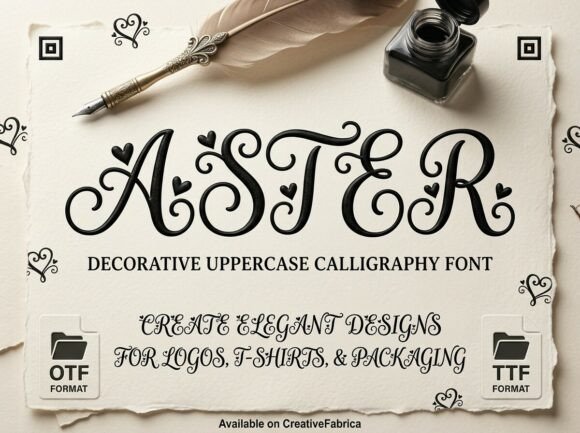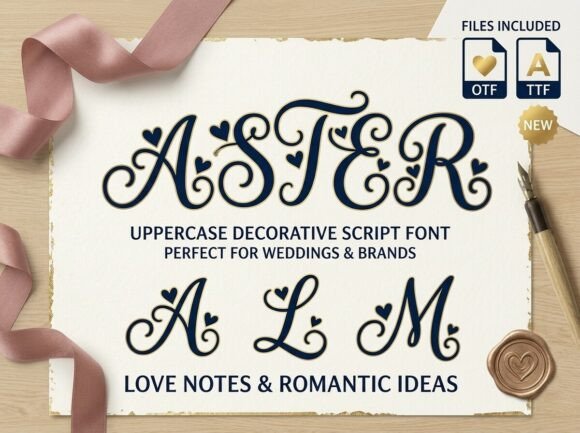
Aster Font: The Sweetest Calligraphy Font for Romantic Designs
Are you looking for a font that can add a touch of romance and whimsy to your designs? Look no further than Aster Font, a unique calligraphy font that is meticulously designed for creative projects with a heartbeat. This enchanting typeface features classically structured script letterforms adorned with a delightful “showering” of tiny hand-drawn hearts, making it the perfect choice for designers and crafters who want to infuse their work with a sense of love and playfulness.
The Unique Features of Aster Font
Aster Font is a one-of-a-kind calligraphy font that boasts a range of unique features that set it apart from other fonts. Some of its notable features include:
- Classically structured script letterforms: Aster Font features beautifully crafted script letterforms that are reminiscent of traditional calligraphy.
- Delightful “showering” of tiny hand-drawn hearts: The font is adorned with tiny hand-drawn hearts that add a touch of whimsy and romance to any design.
- Whimsical swashes: Aster Font features whimsical swashes that add a playful touch to any design.
- Rhythmic, swirling terminals: The font’s terminals are designed to resemble swirling rhythms, adding a sense of movement and energy to any design.
Perfect for Romantic Designs
Aster Font is the perfect choice for designers and crafters who want to create romantic and whimsical designs. Some of the design projects that Aster Font is well-suited for include:
- Personalized wedding stationery: Aster Font is a beautiful choice for wedding invitations, save-the-date cards, and other wedding stationery.
- Boutique Valentine’s Day branding: The font’s whimsical and romantic feel makes it perfect for Valentine’s Day branding and marketing materials.
- Independent florist logos: Aster Font is a great choice for florists who want to add a touch of elegance and romance to their logos.
- Heartwarming editorial headers: The font’s unique features make it perfect for editorial headers that require a touch of whimsy and romance.
Why Choose Aster Font?
There are many reasons why designers and crafters should choose Aster Font for their romantic designs. Some of the benefits of using Aster Font include:
- Unique and eye-catching designs: Aster Font allows designers to create unique and eye-catching designs that are sure to stand out.
- High-quality design: Aster Font is meticulously designed to ensure that it is of the highest quality.
- Perfect for a range of design projects: The font is versatile and can be used for a range of design projects, from wedding stationery to editorial headers.
Tips for Using Aster Font
Here are some tips for using Aster Font in your designs:
- Use it sparingly: Aster Font is a bold and eye-catching font, so it’s best to use it sparingly to avoid overwhelming the design.
- Pair it with other fonts: The font pairs well with other fonts, so feel free to experiment with different font combinations.
- Experiment with different colors: Aster Font looks great in a range of colors, so don’t be afraid to experiment with different colors and color combinations.
- Have fun with it: Aster Font is a fun and playful font, so have fun with it and get creative!
Aster Font is a unique and beautiful calligraphy font that is perfect for designers and crafters who want to add a touch of romance and whimsy to their designs. With its classically structured script letterforms, delightful “showering” of tiny hand-drawn hearts, whimsical swashes, and rhythmic, swirling terminals, Aster Font is the premier choice for personalized wedding stationery, boutique Valentine’s Day branding, independent florist logos, and heartwarming editorial headers. So why not give Aster Font a try and see how it can elevate your designs to the next level?